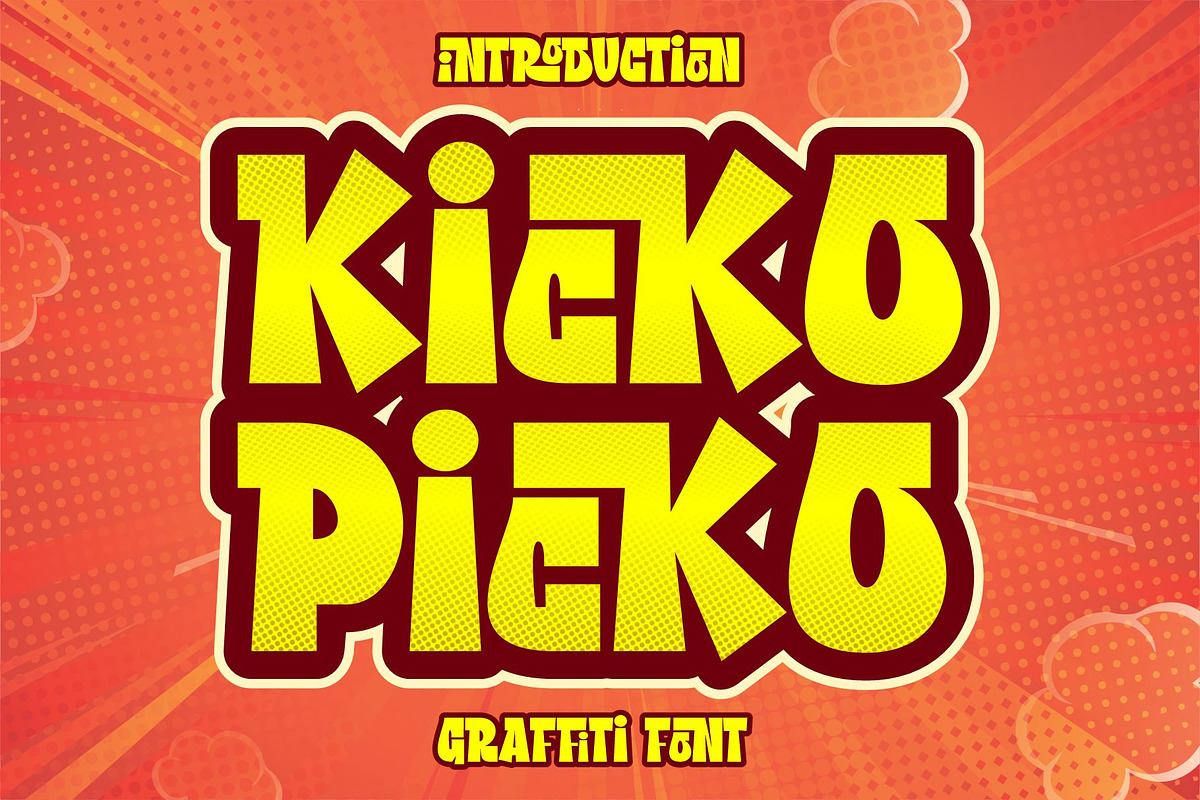
Add a playful and fun element to your designs with Kicko Picko Font Free Download. This whimsical display font is perfect for children’s projects, fun branding, posters, social media graphics, and any design that needs a lighthearted and energetic vibe.
Kicko Picko features bold, rounded letterforms that are both friendly and easy to read. It includes uppercase and lowercase letters, numerals, punctuation, and fun stylistic alternates, making it ideal for testing playful, bold layouts in both digital and print formats.